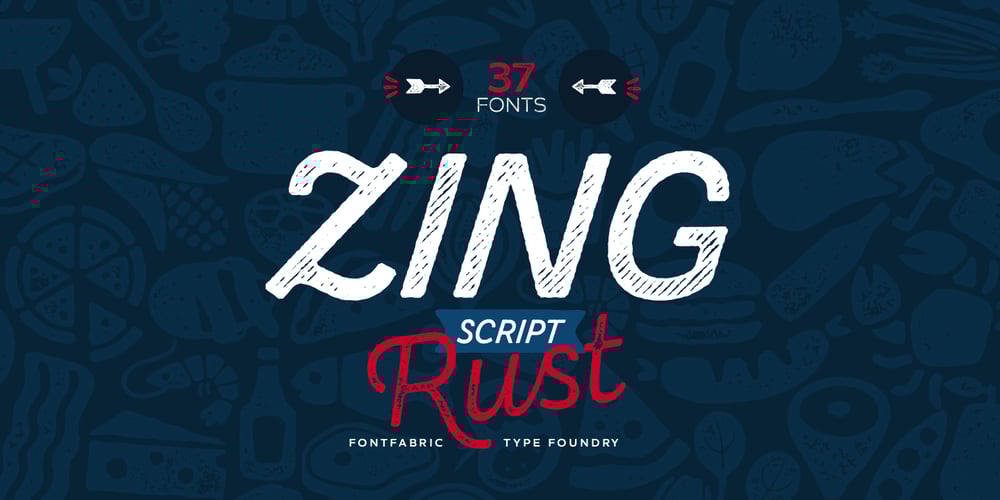
Zing Script Rust Font Family was designed by Svetoslav Simov, Jacklina Jekova and published by Fontfabric. Zing Script Rust contains 30 styles and family package options. Zing Script Rust is created to add extra vitalness in your designs, highlighting it’s unique charm. It is being fully programmed with OpenType features—including the smart Contextual Alternatives, Swashes and Standard Ligatures — in order to visualize the characteristics of a true script. Zing Goodies As a dessert we serve you Zing GoodiesTM that tops off the whole package, making it the extraordinary delicacy! It has 4 basic forms—Bakery, BBQ, Banners and Words —with two style each, which contain plenty of adorable icons for any food and taste, elaborated banners, ribbons and ornaments, and even beautiful selection of useful words accentuating your design.